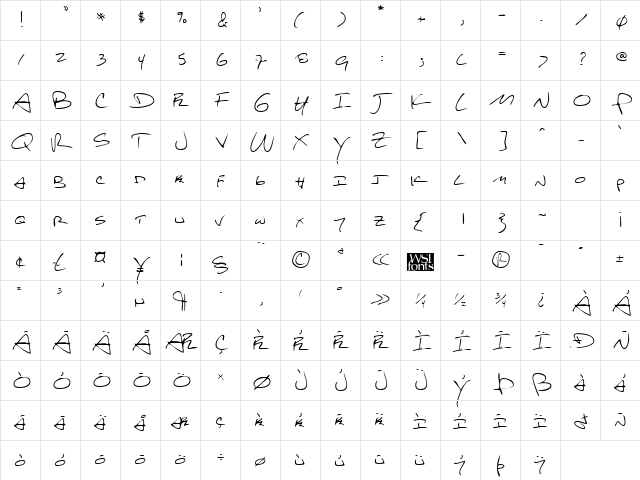
KelseysHand Regular
Design Context for KelseysHand Typeface
KelseysHand brings a calligraphic fluidity to the page — its connecting strokes and expressive curves give it an unmistakably human quality.
Font Pairing: Combine KelseysHand with a simple geometric sans for maximum contrast — the tension between flowing curves and clean structure is a classic typographic pairing.
Pro Tip: Use KelseysHand for short runs of text — names, titles, or taglines. Extended body copy in script faces tires the eye quickly.